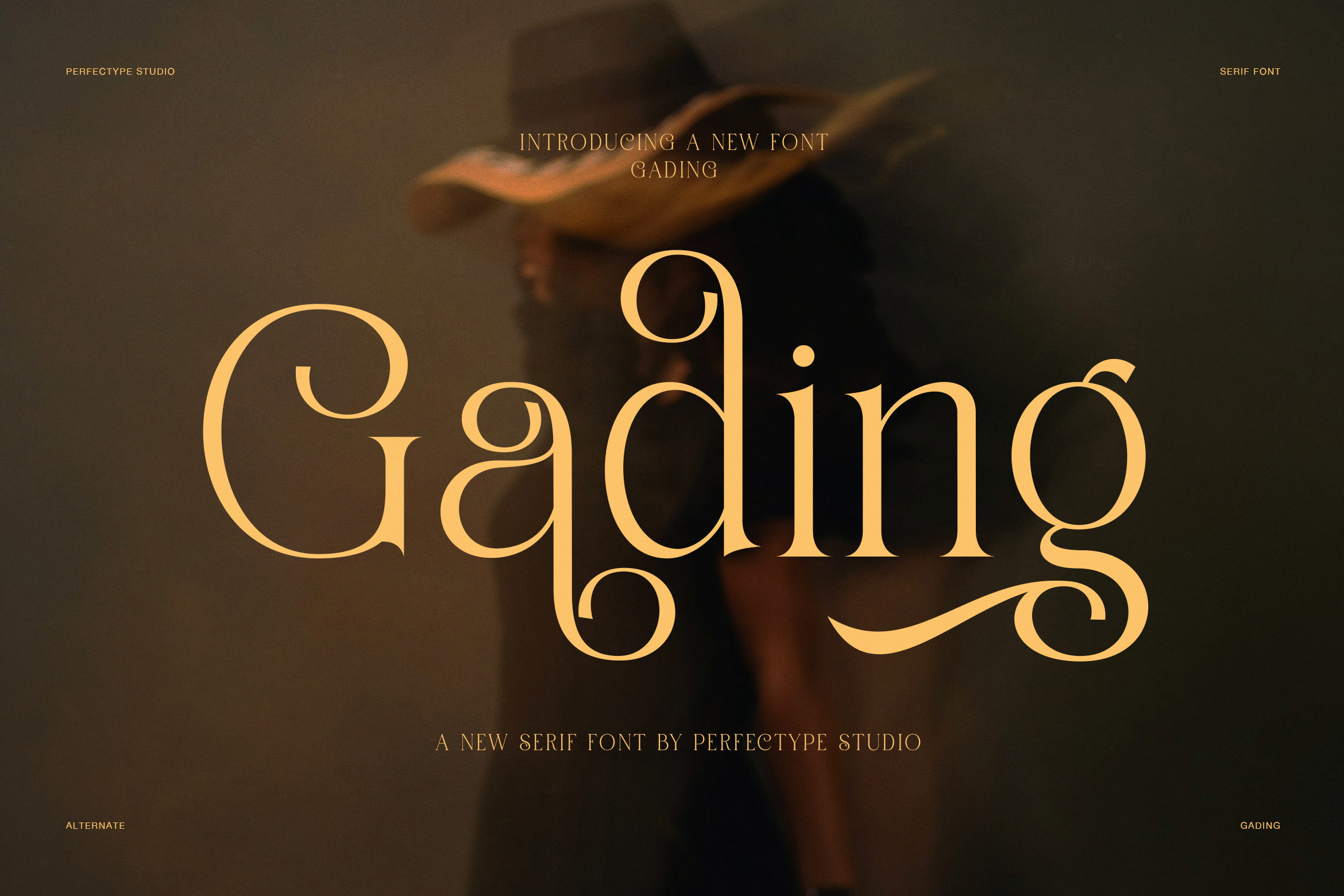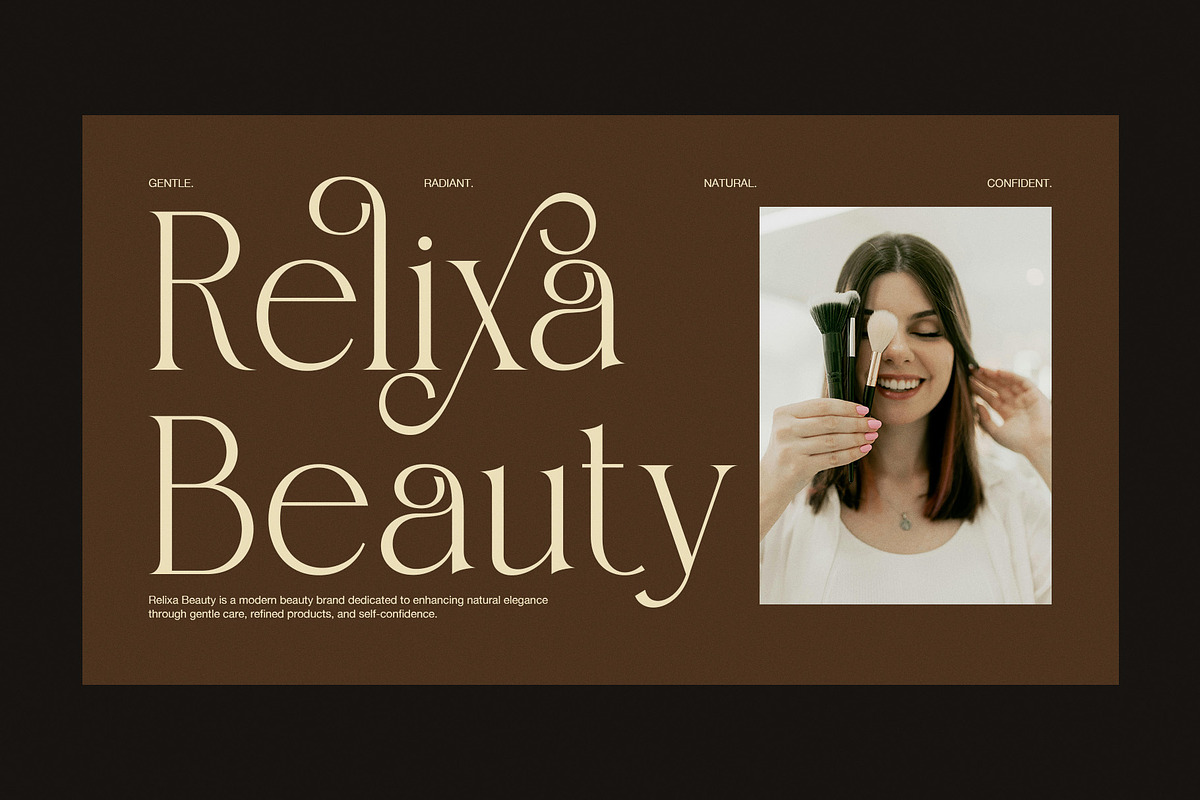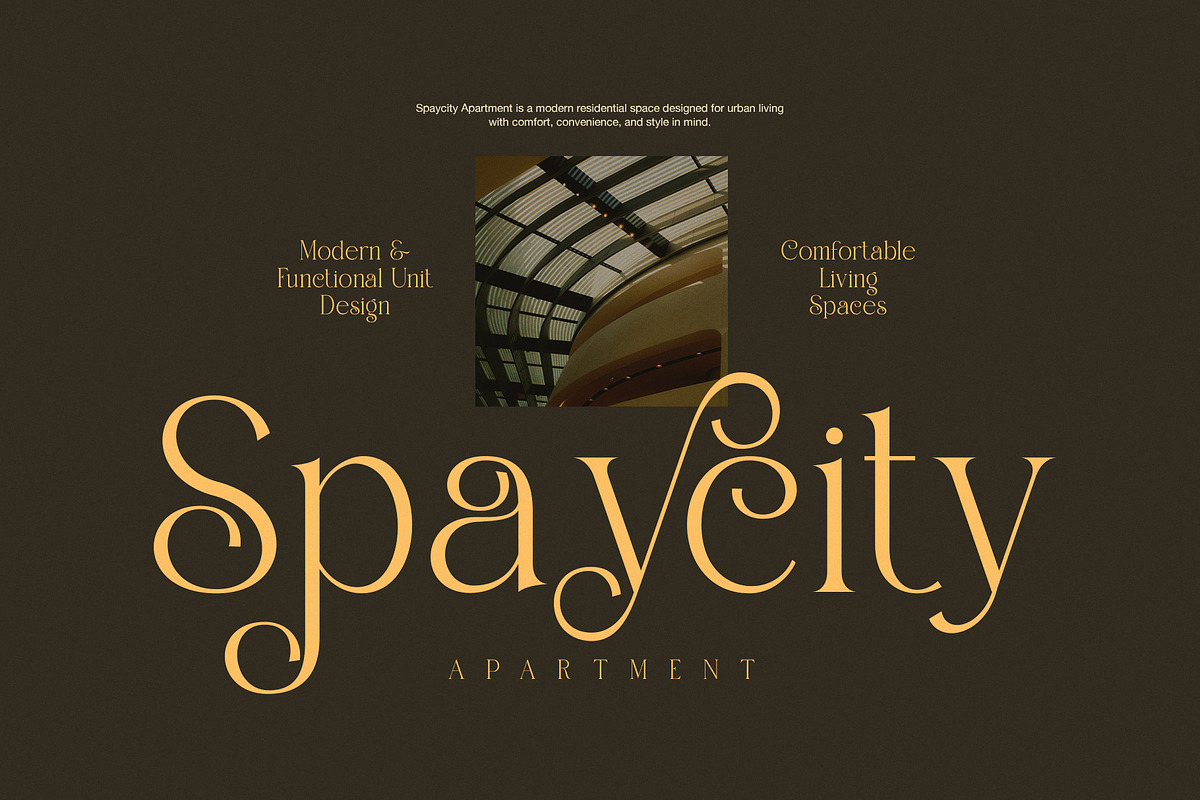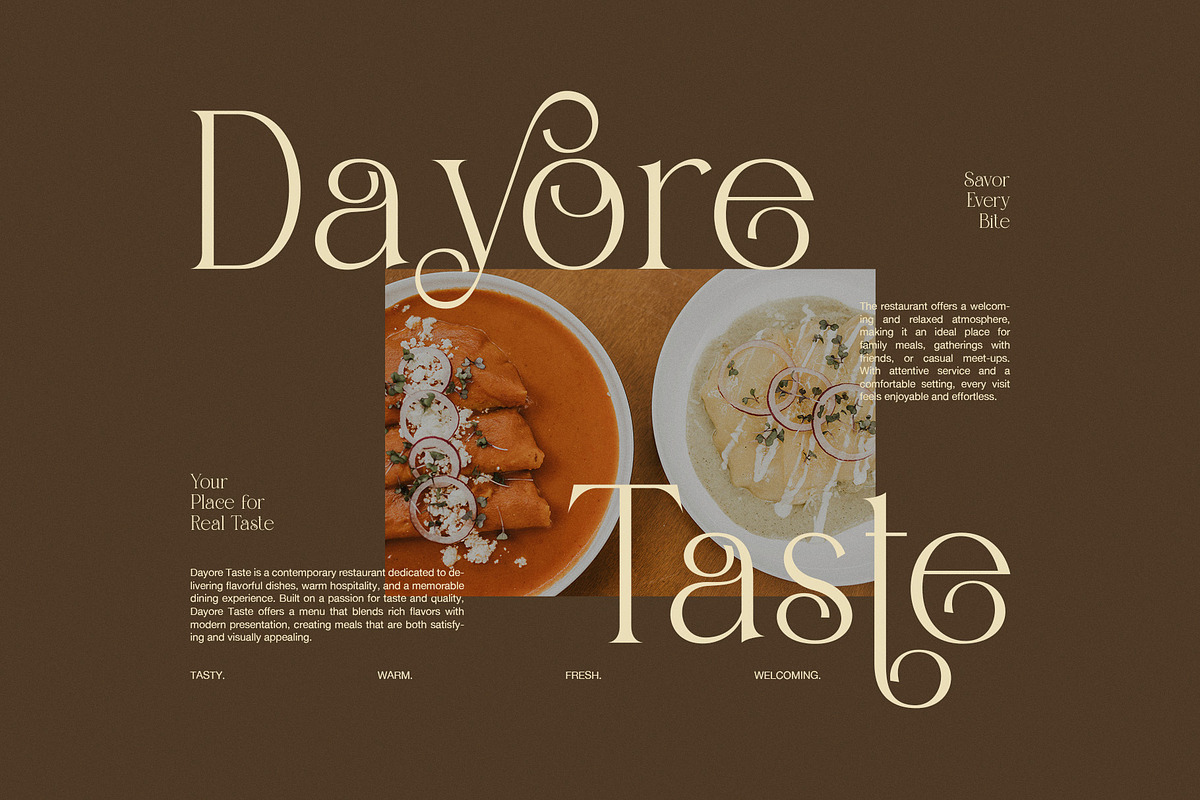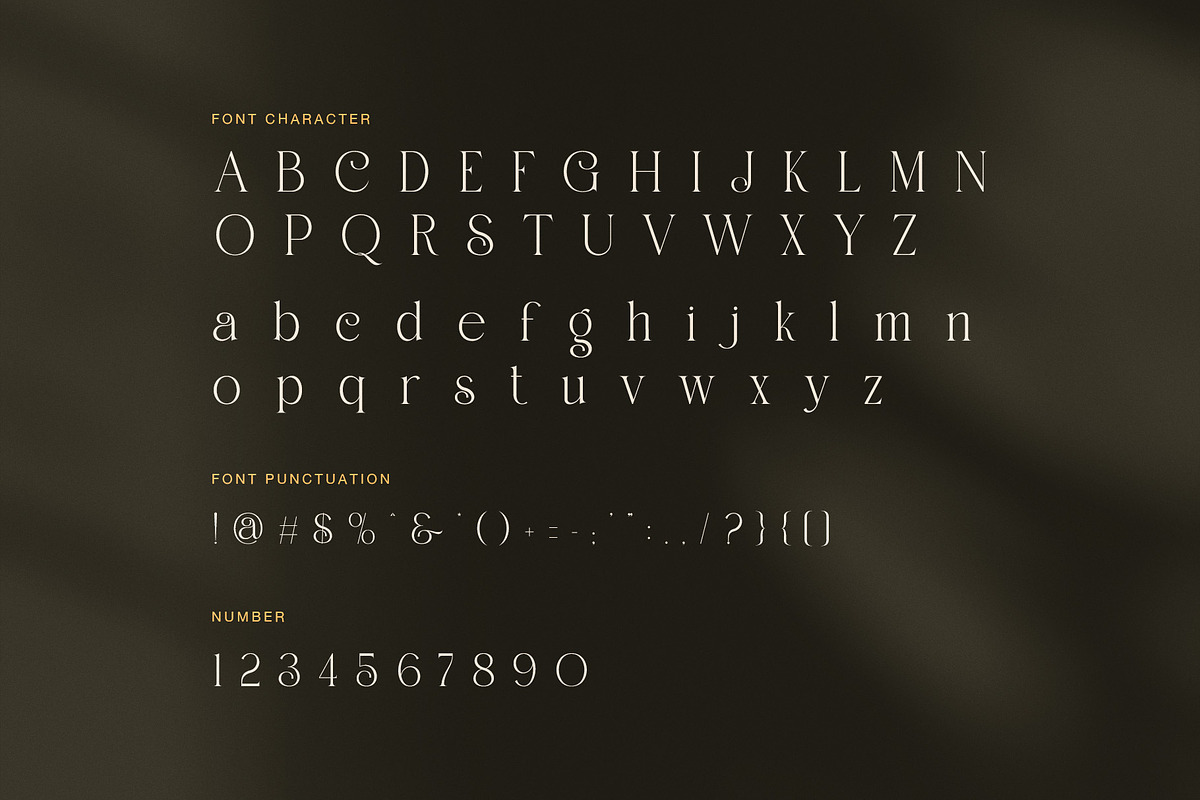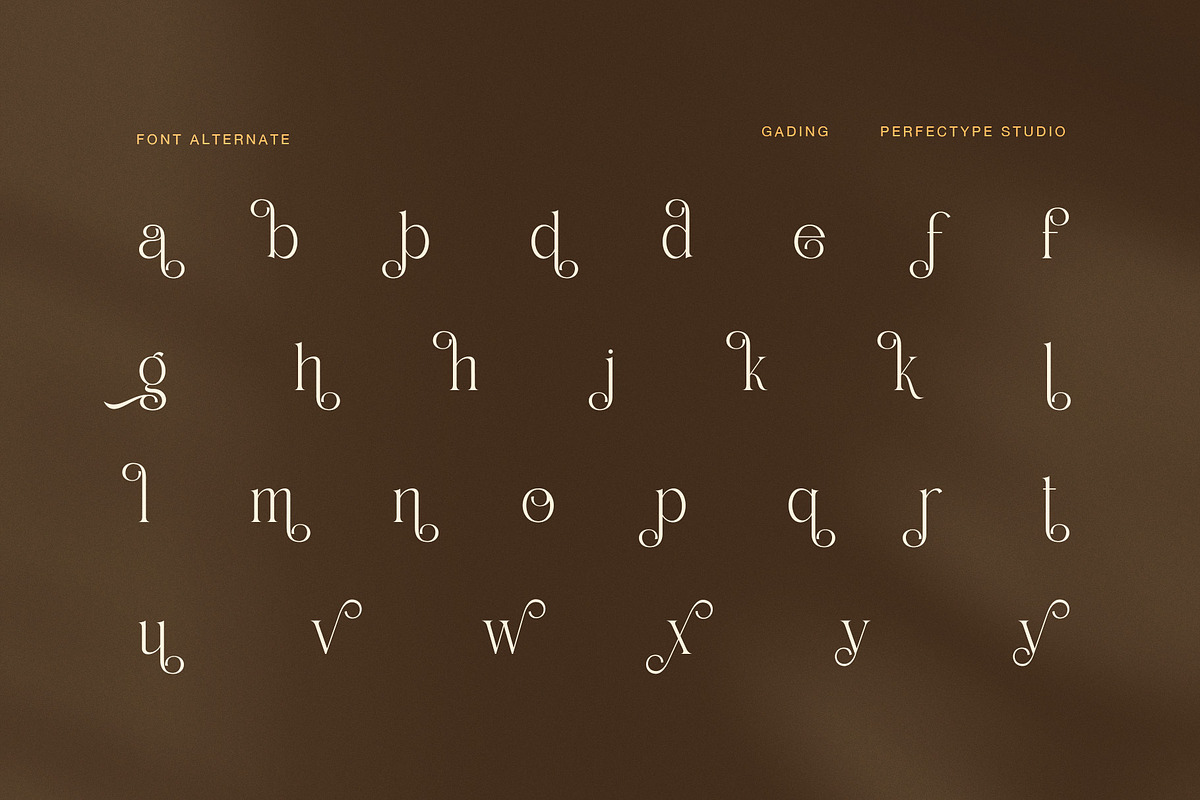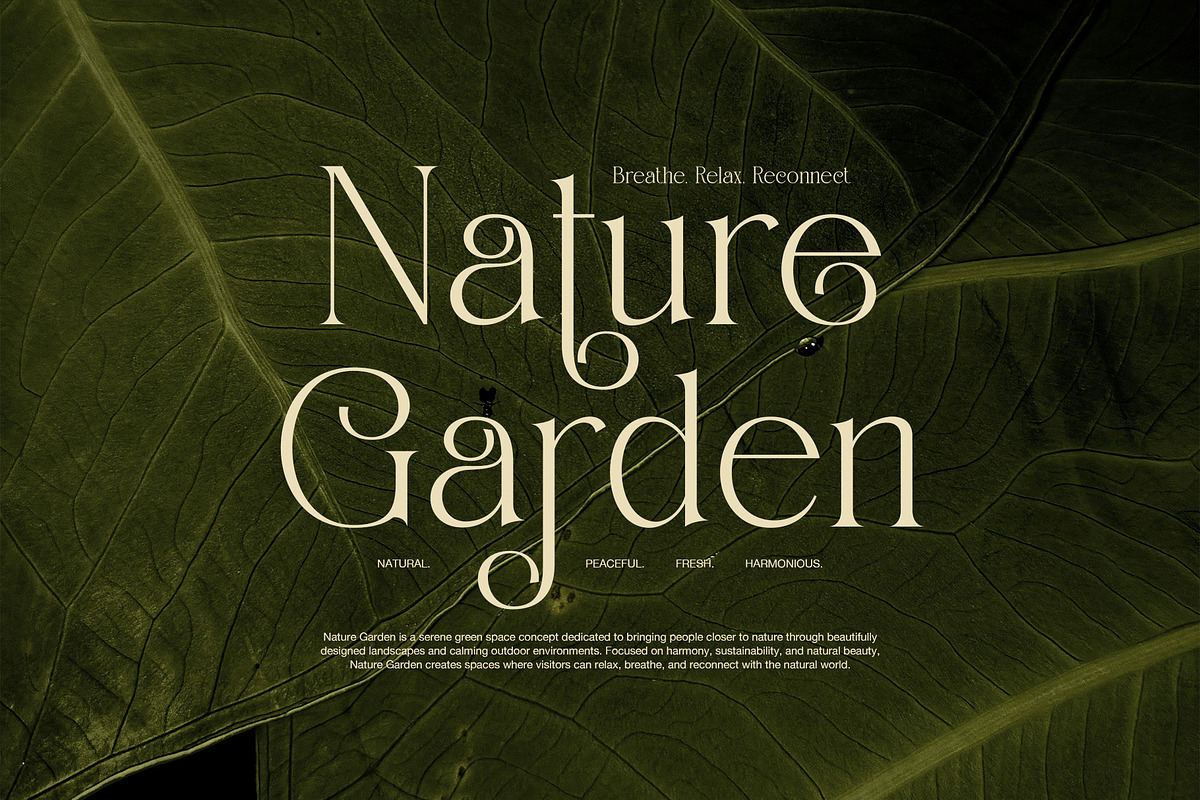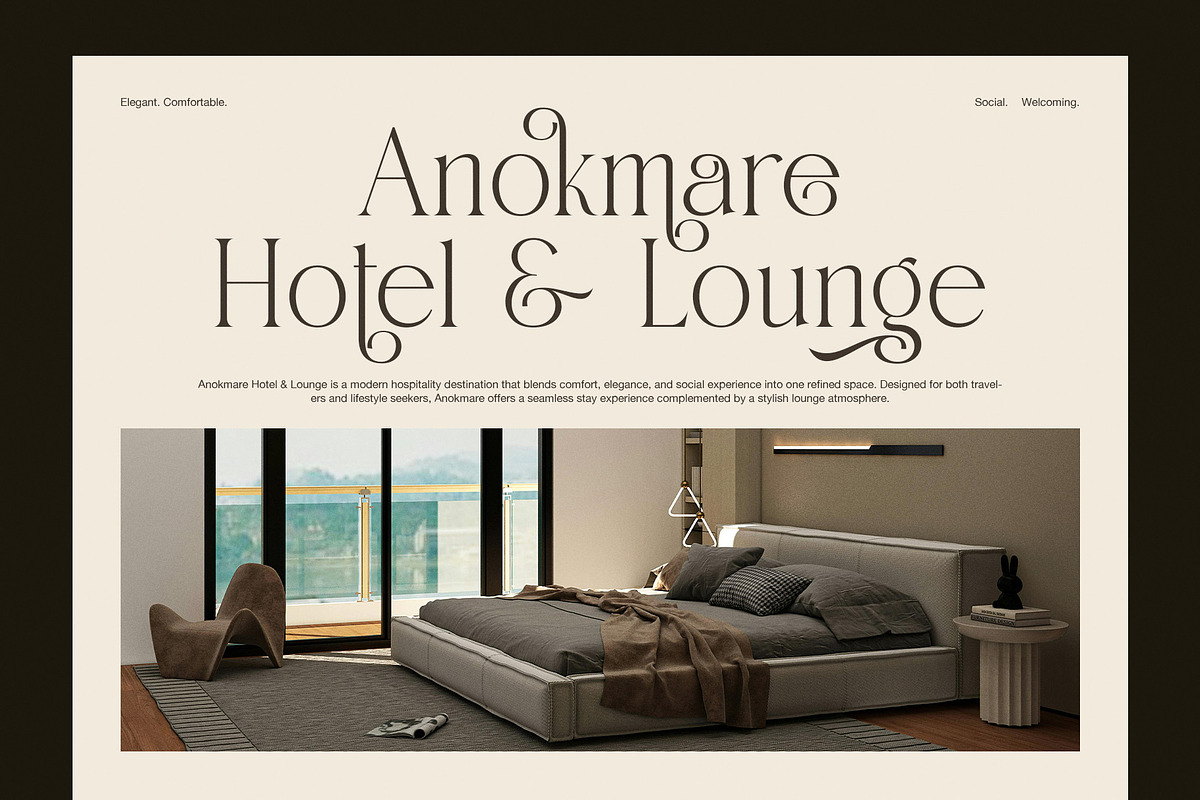
Gading Elegant Serif Display Font
Gading is an Elegant Serif Display Font designed for creators who appreciate timeless beauty with a refined modern touch. Inspired by luxury branding, editorial typography, and sophisticated visual identities, this typeface combines graceful serif forms with decorative alternates and stylish swashes. As a result, every headline becomes memorable while maintaining excellent readability and balance.
The letterforms are carefully crafted with high contrast, soft curves, and delicate terminals that create a graceful appearance. Moreover, the elegant alternate characters introduce artistic details without overwhelming the design. These decorative elements give every word a handcrafted feel, making Gading an excellent choice for premium branding and creative projects that demand distinction.
Because versatility is essential, Gading adapts beautifully across many design styles. It works perfectly for luxury logos, fashion campaigns, beauty packaging, boutique branding, hotels, cafés, restaurants, lifestyle products, wedding stationery, and editorial magazines. In addition, the stylish swashes allow designers to create custom-looking typography with minimal effort, saving time while producing professional results.
Unlike ordinary serif fonts, Gading blends classic elegance with contemporary simplicity. Therefore, it feels luxurious while remaining approachable and highly functional. Whether you are creating a brand identity, designing product packaging, or producing social media content, this font helps communicate quality, confidence, and creativity. Furthermore, the refined spacing ensures smooth reading across both large display text and medium-sized titles.
Luxury branding
Fashion editorials
Elegant logos
Boutique identities
Wedding invitations
Beauty brands
Cosmetic packaging
Hotel branding
Restaurant menus
Café identities
Lifestyle magazines
Product packaging
Interior design brands
Premium advertising
Additionally, Gading includes beautifully designed alternate characters that provide greater flexibility during the creative process. Designers can easily switch between standard and alternate glyphs to build unique wordmarks and elegant compositions. Consequently, every project feels more personal and visually engaging.
Whether you are developing a luxury business identity or refreshing an existing brand, Gading delivers a sophisticated typographic solution. Its decorative serif details, elegant proportions, and premium character set create an impression of quality that lasts. From editorial layouts and fashion branding to hospitality, wellness, and creative portfolios, Gading brings timeless elegance and artistic personality to every design.